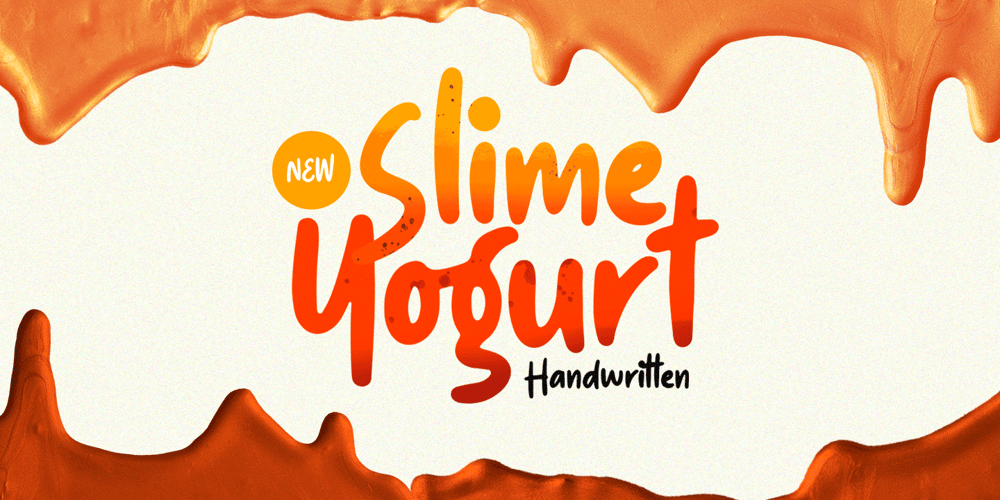
Slime Yogurt Font Family was designed by Hendry Juanda and published by Letterhend. Slime Yogurt contains 1 styles and family package options. Slime Yogurt is a fun and playful font which is made by a natural hand writing. The bold stroke make this font looks stands out, very suitable to be applied especially for logo, title, headline, slogan / tagline and the other various formal forms such as invitations, labels, logos, magazines, books, greeting / wedding cards, packaging, fashion, make up, stationery, novels, labels or any type of advertising purpose.Features : uppercase & lowercase numbers and punctuation multilingual alternates & ligatures PUA encoded We highly recommend using a program that supports OpenType features and Glyphs panels like many of Adobe apps and Corel Draw, so you can see and access all Glyph variations. How to access opentype feature : letterhend.com/tutorials/using-opentype-feature-in-any-software/Email us to letterhend@gmail.com if you need something! Happy Designing!